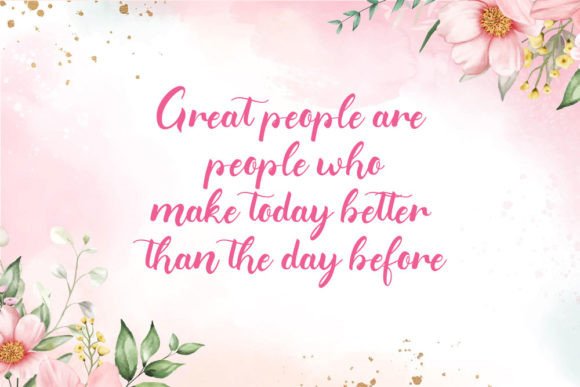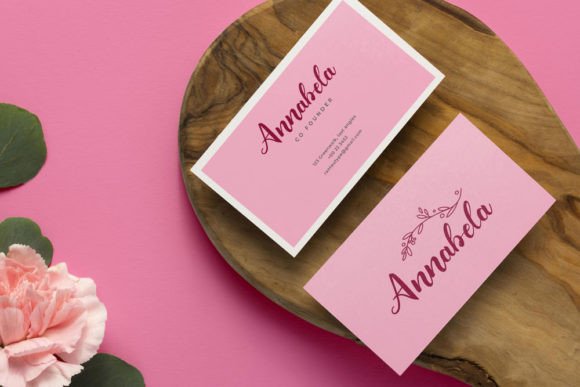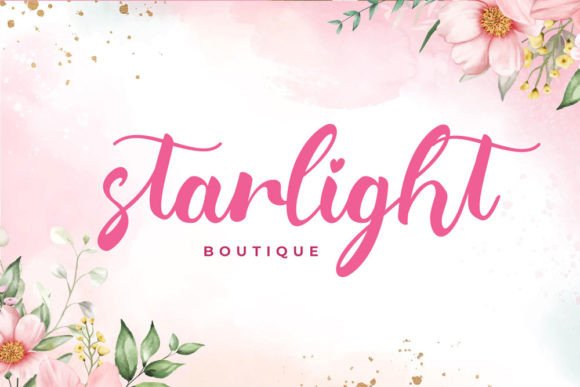
Introduction to Merlia Font
Merlia is a flowing handwritten font, described by an elegant touch, perfect for your favorite projects.
Fall in love with its incredibly distinct and timeless style and use it to create spectacular designs This font is PUA encoded which means you can access all of the glyphs and swashes with ease.
Why Choose Merlia Font?
Merlia Font offers exceptional quality and versatility, making it a valuable addition to your design toolkit. Whether you’re creating for personal projects or commercial use, Merlia Font delivers professional results.